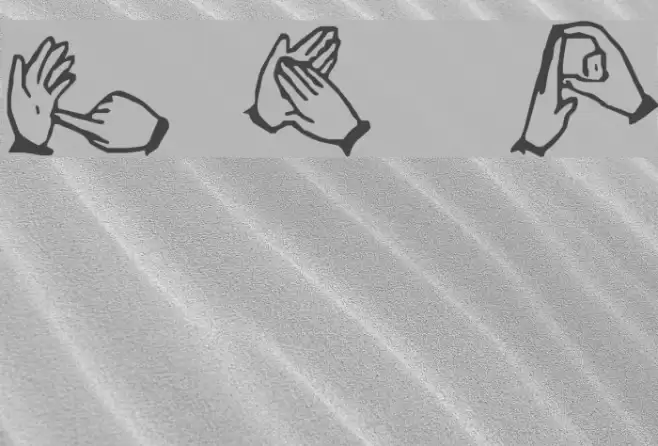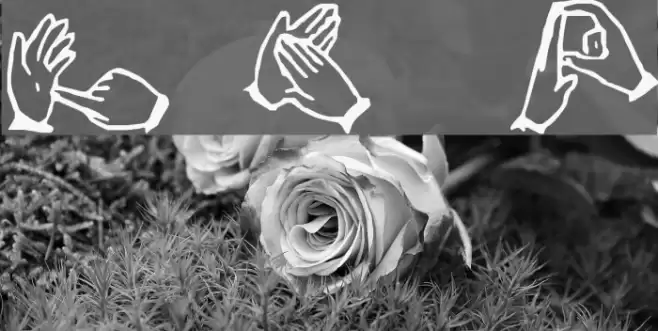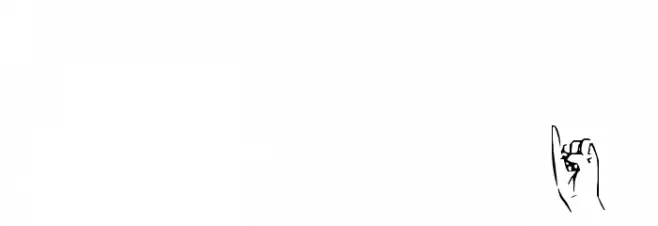
The Hands of Deaf Font
The Hands of Deaf Description
A decorative display font where each character is represented by a stylized hand gesture, mimicking American Sign Language finger-spelling. The illustrations are outlined, with consistent line weight and clear hand shapes, making each letter distinct and recognizable.
A display font using hand-drawn sign language gestures for each character from Dingbats fonts.
- Font: The Hands of Deaf
by spideraysfonts - Weight: Regular
- Proposed Projects: Educational materials, awareness campaigns, posters, inclusive design projects, children’s books.
- Overall Style: Decorative, Illustrative, Inclusive
- Use Case: Headlines, Posters, Educational content, Themed graphics